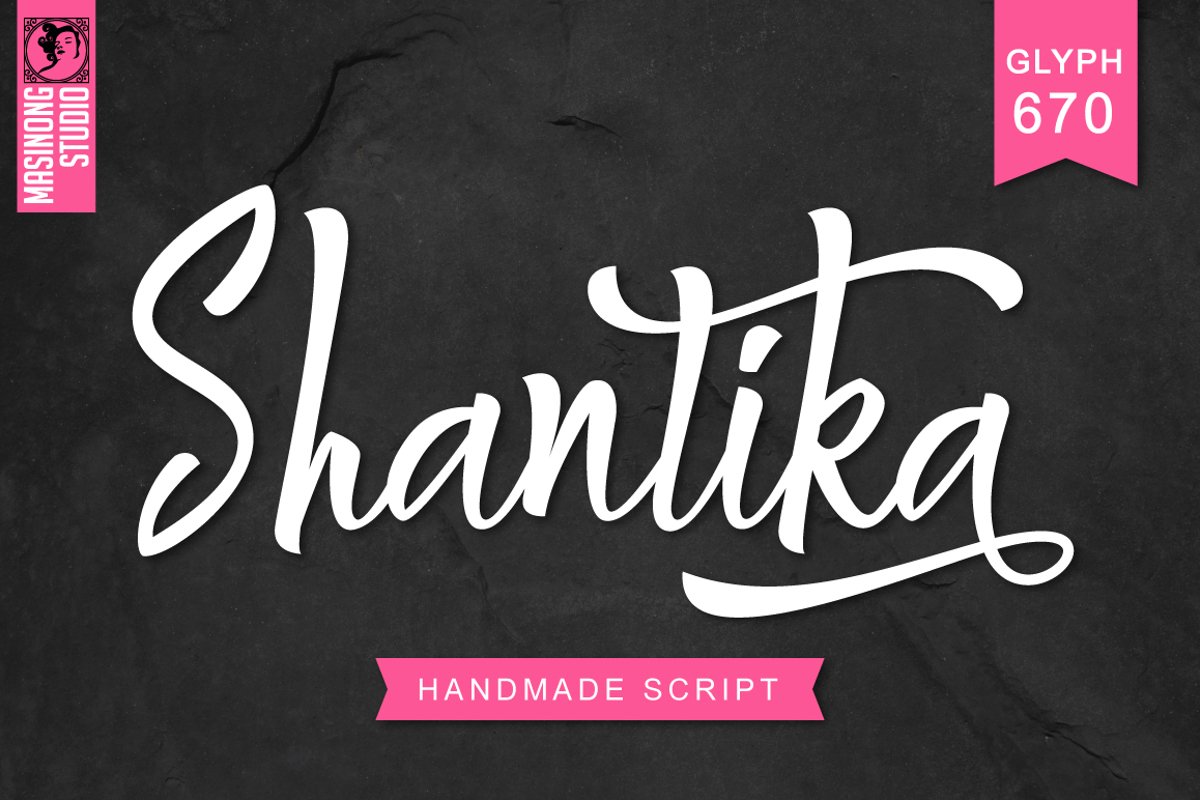
Shantika Script
Shantika Script Inspired by Retro style and combination with
Hand Lettering style. I'm made with personality touch every single curve. I
hope this can make inspire you from your work. and a very bouncy baseline It
has a perfectly paired complimentary marker font , and a super handy set of
bonus Swash. Ideal for logos, handwritten quotes, product packaging, header,
poster, merchandise, social media & greeting cards.
Basic
Latin A-Z and a-z
Numbers
Symbols
Stylistic
Set
Ligature
PUA Encode
Multilanguage Support